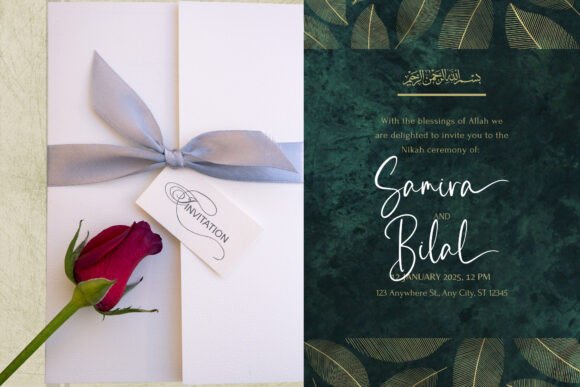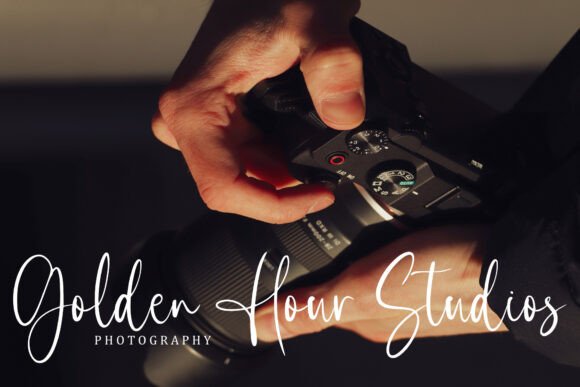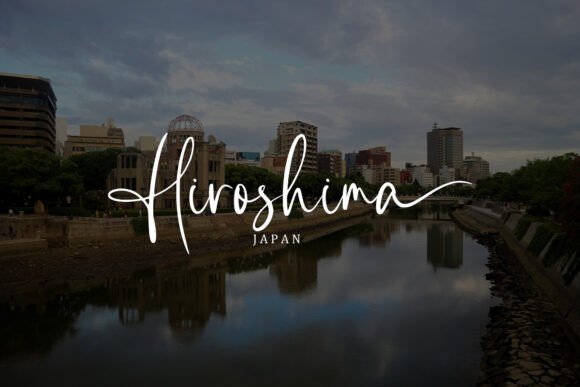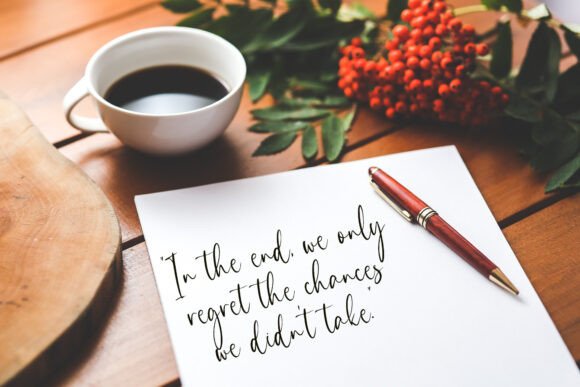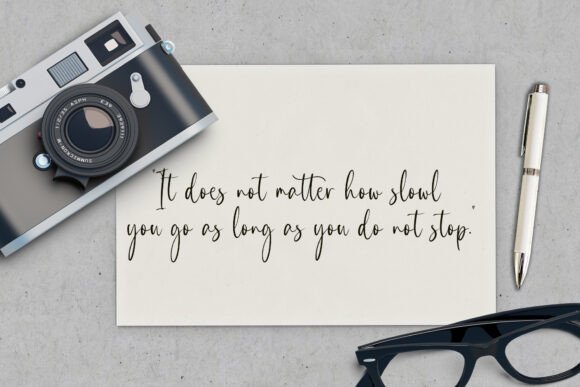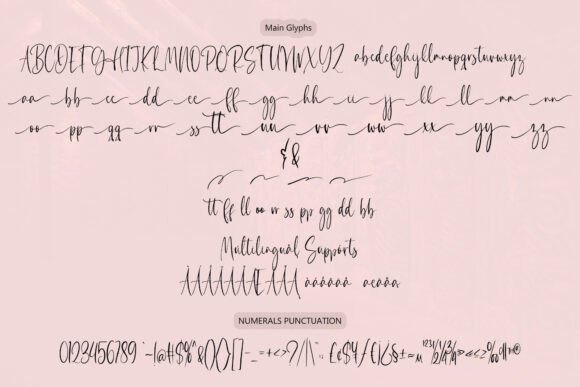
The Elegance of Bluffington Font: Elevating Your Design Game
Have you ever stared at a blank page, struggling to find the perfect font to bring your creative vision to life? That’s exactly what happened to me last week while working on a branding project. After hours of searching, I stumbled upon a hidden gem – Bluffington Font. Its elegant script style immediately caught my eye, and I knew I had to learn more.
Bluffington Font is more than just a pretty face; it’s a sophisticated tool designed to add a touch of modern flair to any project. With its flowing curves, delicate ligatures, and stylish swashes, this font brings a unique charm that sets it apart from the rest. Whether you’re designing invitations, logos, or packaging, Bluffington Font is the perfect choice for both individual and professional use.
As a designer, you understand the importance of having the right tools at your disposal. That’s why Bluffington Font is a valuable addition to your design arsenal. Its versatility and elegance make it a go-to font for any project that requires sophistication and style.
Bluffington Font Key Features
- Font Family: Bluffington Font is a unique, handwritten font designed for creative and artistic purposes.
- Character Count: The font family includes over 300 characters, including uppercase and lowercase letters, numbers, and punctuation marks.
- Unique Characteristics: The font features a distinctive, hand-written style with varying line widths, ink bleeds, and subtle imperfections, giving it a personal and artistic feel.
Designer Review: Bluffington Font
Overall, I’d say the Bluffington Font is a solid, if unremarkable addition to any typographic arsenal. Here’s what I like about it: ✨ It’s very readable, even at smaller font sizes, which makes it perfect for body text or captions. ✨ The font also has a friendly, approachable feel that works well for everyday use, like blog posts or social media updates. ✨ And, the font family is relatively large, with multiple weights and styles to choose from.
However, there are a few limitations to consider: ⚠️ The font’s aesthetic is a bit too generic for my taste – it doesn’t particularly stand out from the crowd. ⚠️ Additionally, the font’s x-height is a bit too small, which can make it harder to read in certain contexts. ⚠️ And, while the font family is large, some of the weights and styles feel a bit inconsistent, which can be jarring to designers who value cohesion.
Overall, I’d recommend the Bluffington Font to designers who need a reliable, readable font for everyday use. It’s not going to blow anyone away with its unique style or personality, but it gets the job done.
- Highly readable, even at small font sizes
- Friendly, approachable feel
- Relatively large font family, with multiple weights and styles
- Consistent spacing and kerning
The Bluffington Font is ideal for creating whimsical and playful designs, such as:
1. Children’s book illustrations
2. Party invitations and decorations
3. Branding and marketing materials
4. Social media graphics and ads
5. Educational materials and worksheets